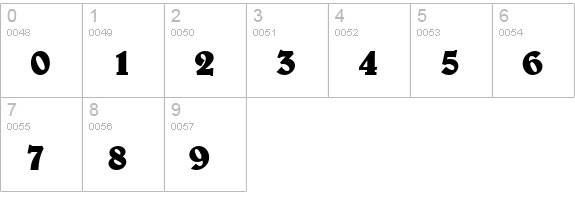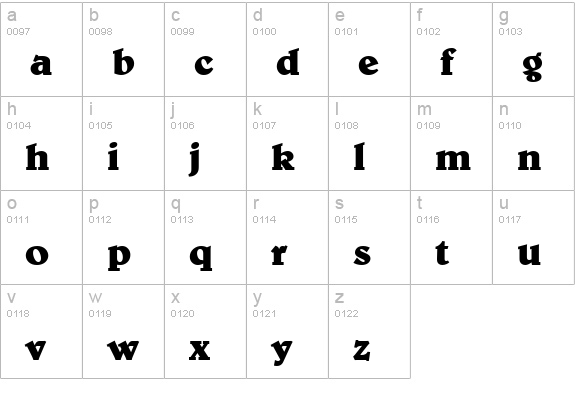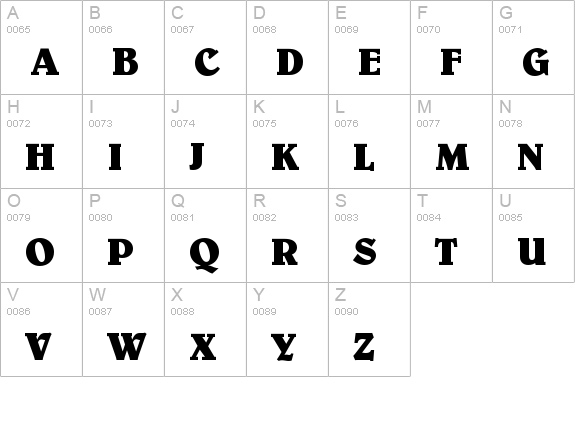
URWBerniniTBol Font Details
URWBerniniTBol is a versatile and elegant font that combines classic sophistication with a modern twist. This font is perfect for any project that requires a touch of refinement and style. It features clean lines and beautifully balanced letterforms that make it easy to read and visually pleasing. URWBerniniTBol is a free font that can be downloaded from FontsMarket.com. This means that you can use it in both personal and commercial projects without any restrictions. Whether you're designing a logo, creating a website, or crafting a poster, this font will add a touch of professionalism and class. One of the standout features of URWBerniniTBol is its versatility. It works well in both large and small sizes, making it suitable for a wide range of applications. The bold weight of the font gives it a strong presence, while the elegant curves and subtle details add a touch of refinement. Another notable aspect of URWBerniniTBol is its legibility. The carefully designed letterforms ensure that each character is easily distinguishable, even at smaller sizes. This makes it a great choice for body text, as well as headlines or titles. URWBerniniTBol is a font that effortlessly combines tradition and modernity. Its timeless design makes it suitable for a variety of projects, from classic branding to contemporary designs. It is a font that exudes confidence and sophistication, making it a must-have for any designer's toolkit. In conclusion, URWBerniniTBol is a free font that is both versatile and elegant. It is available for download at FontsMarket.com, allowing you to use it in any personal or commercial project. With its clean lines, balanced letterforms, and effortless legibility, this font is sure to elevate your designs to the next level.